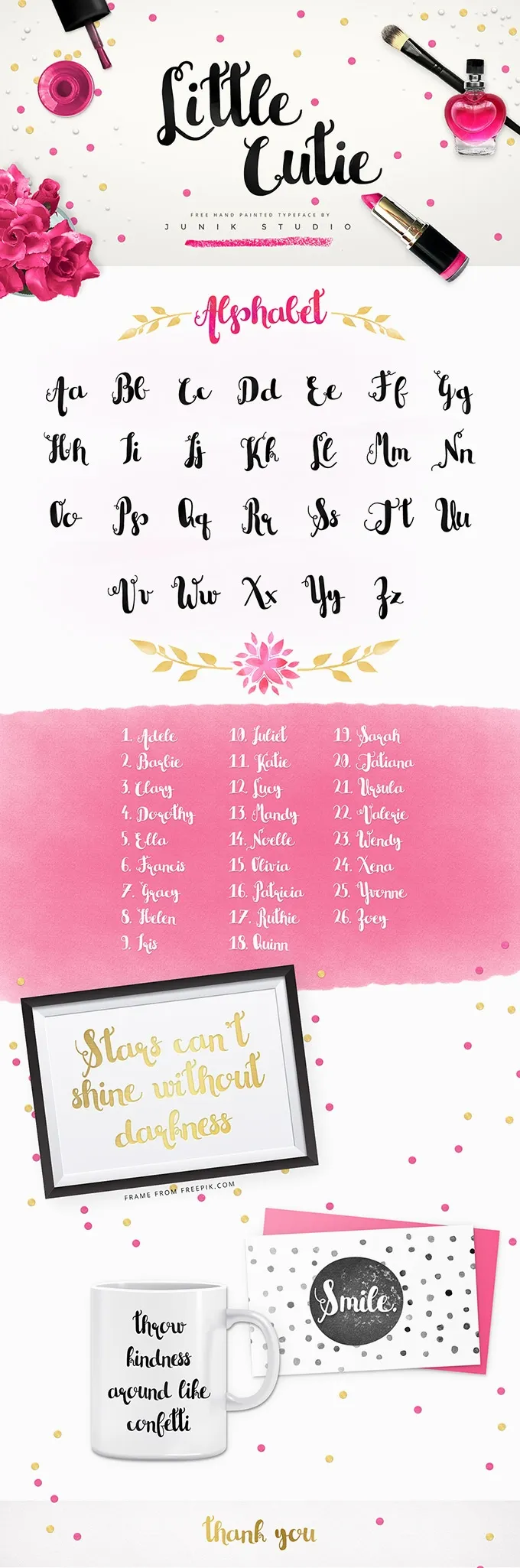
Little Cutie Script Typeface
We'd like you to meet a very artistic and elegant brush-lettered script font. It will fulfill the fanciness level in every design project, plus it's so sweet and adorable, hold your awe of excitement!
There's always something gentle about the script fonts, don't you think? Their curves and twisted characters are extremely tempting. But this font multiplies the amount of charm many times! Whether you have a beauty blog post to decorate or a fancy headline to create, maybe a logotype or headline say no more, just take this font and so your thing.